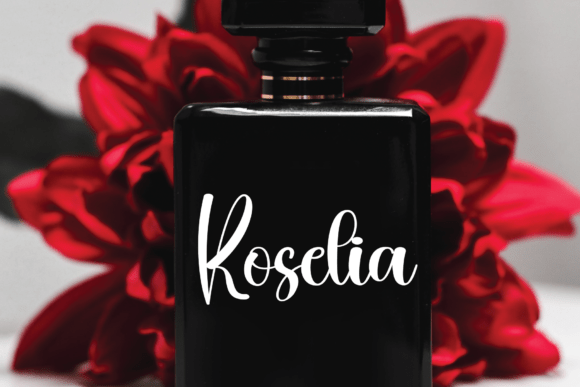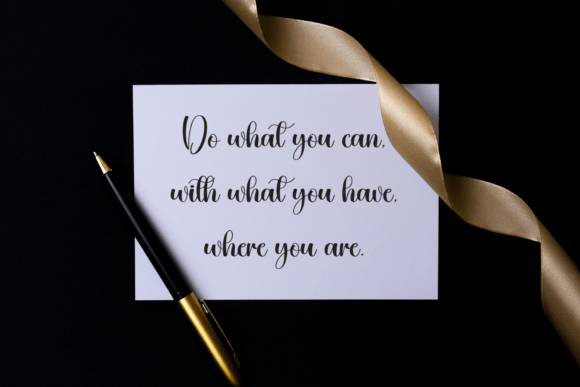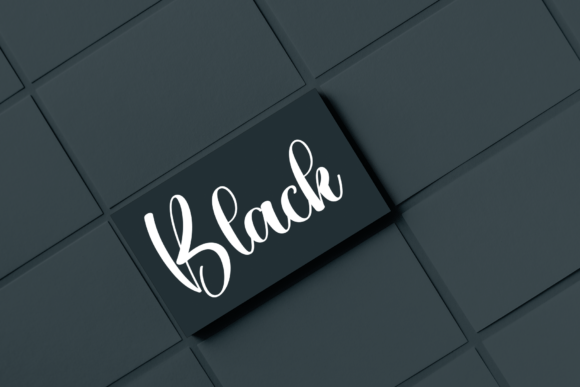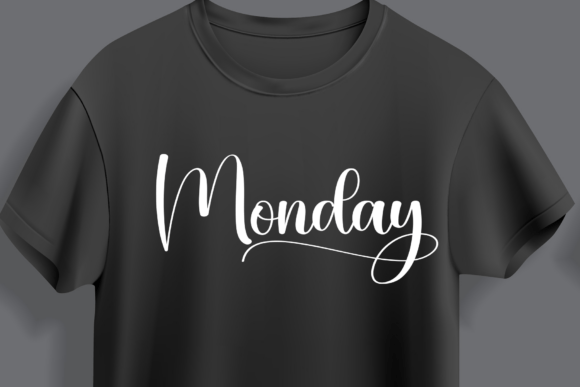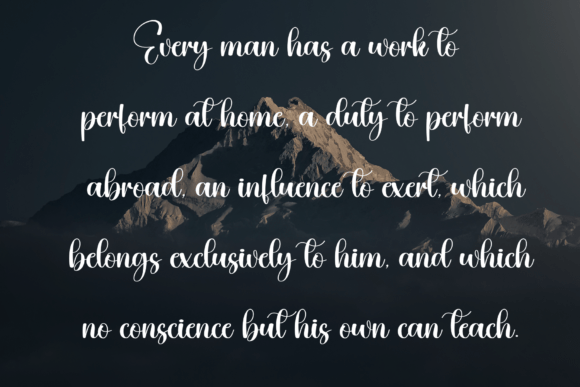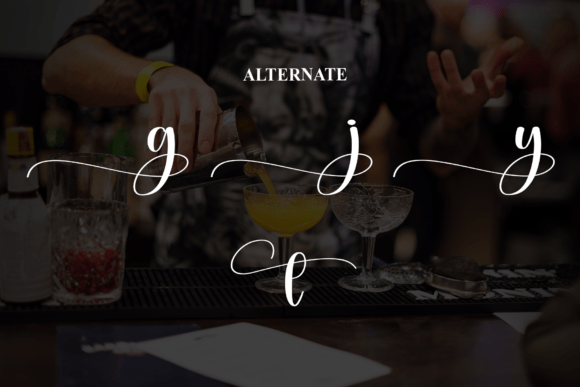
Bartending Font: Elevate Your Creativity with Elegance
Bartending is a magical script font carefully created with a touch of elegance. Whether you’re looking for fonts for Instagram or calligraphy scripts for DIY projects, this font will turn any creative idea into a true piece of art! In this article, we’ll dive into the world of Bartending Font, exploring its features, uses, and benefits for designers and crafters alike.
The Story Behind Bartending Font
Bartending Font is a script font designed to bring a touch of sophistication and elegance to any creative project. Its unique, flowing lines and carefully crafted letterforms make it perfect for a wide range of applications, from social media graphics to handmade crafts. The font’s creator aimed to develop a typeface that would inspire creativity and provide a versatile tool for designers, crafters, and DIY enthusiasts.
Key Features of Bartending Font
- Elegant Script Design: Bartending Font boasts a beautiful, cursive script design that adds a touch of luxury to any project.
- Magical Touch: The font’s unique flair and swashes give it a whimsical, magical feel that’s perfect for creative projects.
- High Versatility: Bartending Font can be used for a wide range of applications, including Instagram graphics, calligraphy, DIY projects, and more.
- Easy to Read: Despite its elegant design, Bartending Font remains highly legible, making it suitable for both headings and body text.
Using Bartending Font for Instagram and Social Media
In today’s digital age, having a strong online presence is crucial for designers, crafters, and DIY enthusiasts. Bartending Font can help elevate your Instagram and social media graphics, making them stand out in a crowded feed. Here are some ideas for using Bartending Font on social media:
- Quote Graphics: Use Bartending Font to create stunning quote graphics that showcase your favorite inspirational quotes.
- Instagram Stories: Add a touch of elegance to your Instagram stories with Bartending Font, perfect for highlighting promotions, new products, or behind-the-scenes content.
- Branding and Logo Design: Incorporate Bartending Font into your branding and logo design to create a cohesive, sophisticated visual identity.
Bartending Font for Calligraphy and DIY Projects
Bartending Font is not just limited to digital applications; it’s also perfect for calligraphy and DIY projects. Here are some ideas for using Bartending Font in your next craft project:
- Hand Lettering: Use Bartending Font as a reference for hand lettering, adding a touch of elegance to your artwork.
- DIY Cards and Invitations: Create beautiful, handmade cards and invitations with Bartending Font, perfect for special occasions.
- Wall Art: Use Bartending Font to create stunning wall art, from inspirational quotes to decorative typography.
Tips and Tricks for Working with Bartending Font
To get the most out of Bartending Font, here are some tips and tricks to keep in mind:
- Experiment with Colors: Bartending Font looks great in a variety of colors, so don’t be afraid to experiment and find the perfect hue for your project.
- Mix and Match Fonts: Combine Bartending Font with other fonts to create a unique, visually appealing typography style.
- Pay Attention to Kerning: Make sure to adjust the kerning and spacing to ensure your text looks balanced and elegant.